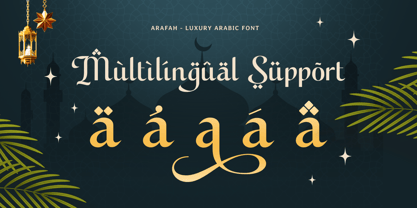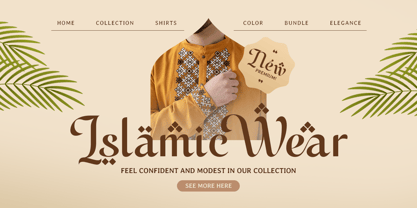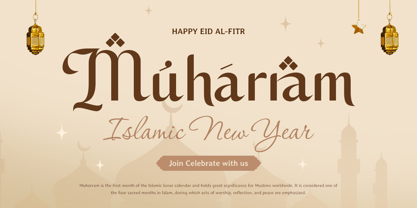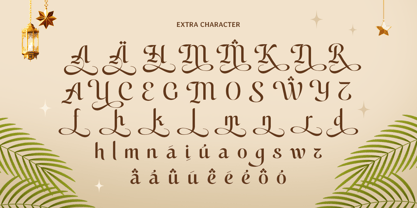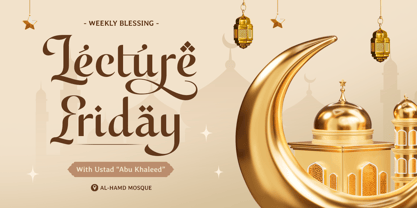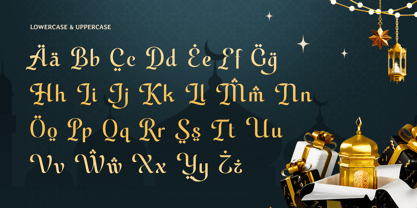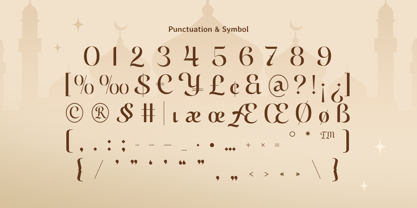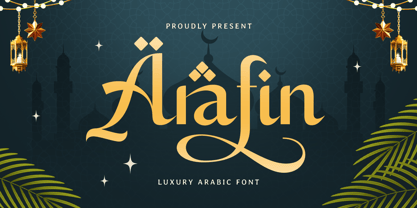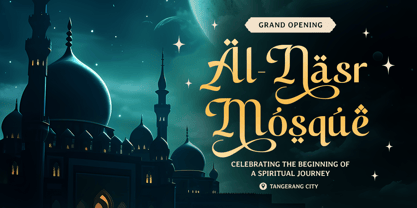
Arafin
by Sensatype Studio
The Arafin Font Family was designed by Zamroni Hamzah and published by Sensatype Studio. Arafin contains 1 styles. More about this family
Arafin - Luxury Arabic Font
Arafin is a premium Arabic font crafted to elevate your design projects with a luxurious and refined aesthetic. Its elegant curves and contemporary style make it ideal for high-end branding, Ramadan campaigns, exclusive invitations, and more.
Inspired by the artistry of Arabic calligraphy and the cultural richness of Islamic design, Arafin strikes a perfect balance between tradition and modernity. Whether you’re working on digital media, print materials, or packaging, Arafin ensures your creations exude class and elegance.
Elevate your creative toolkit with Arafin, the ultimate choice for designers seeking luxury and cultural depth in their Arabic typography.
Arafin Luxury Arabic Font Features:
• Elegant and Modern Arabic Typography
• Includes Punctuation, Numbers, and Symbols
• Uppercase and Lowercase Characters
• OpenType Features for advanced styling options
Multilingual Support for:
Designers: Zamroni Hamzah
Foundry: Sensatype Studio